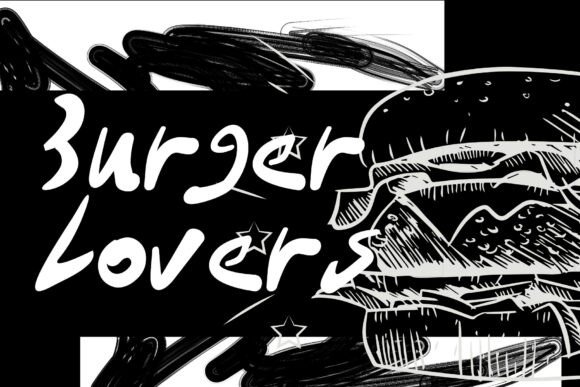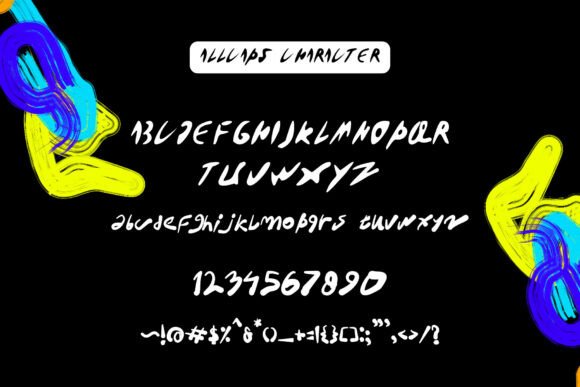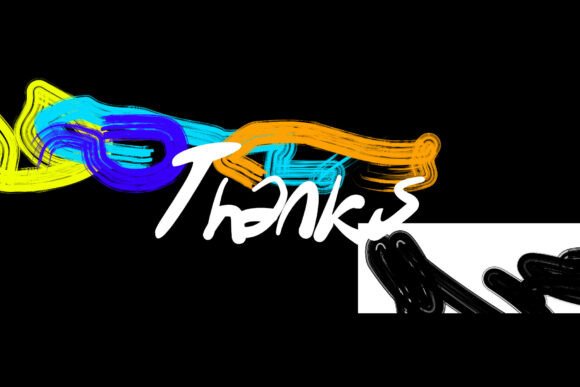
Introduction to Santara Font
Have you ever stared at a blank canvas, waiting for inspiration to strike? The blank page can be intimidating, but it’s also an opportunity to unleash your creativity. For designers, finding the perfect font can be the key to unlocking a project’s full potential. And that’s where the Santara Font comes in – a bold, handwritten display typeface that’s sure to add a touch of playfulness to any design.
With its brush-style strokes and modern typography, the Santara Font is a design resource that’s hard to ignore. Whether you’re working on a creative project or just need a high-quality font for a specific design, this font is sure to deliver. And the best part? It’s available for free download with a transparent background, making it easy to incorporate into your design.
Key Features of Santara Font
- High-quality design resource for creative projects, suitable for various design applications.
- Unique, elegant design that adds a touch of sophistication to any creative project.
Honest Review: Santara Font
I recently had the chance to work with the Santara Font in a creative project, and I must say it’s been a game-changer. As a designer, I’m always on the lookout for high-quality design resources that can elevate my work.
One of the standout features of the Santara Font is its beautiful, elegant design. The font is perfect for use in logo design, branding, and other creative projects where a sophisticated look is required. I especially appreciate the fact that it’s a free download, making it an accessible resource for designers of all levels.
- ✨ Beautiful, elegant design that’s perfect for logo design and branding
- ✨ High-quality font that’s suitable for a wide range of creative projects
- ⚠️ Limited character set, which may be a concern for designers working on projects that require a wide range of characters
- ⚠️ May not be suitable for use in text-heavy designs, as the font can be a bit too ornate
Overall, I’m really impressed with the Santara Font, and I think it’s a great addition to any designer’s toolkit. With its beautiful design and high-quality construction, it’s a font that’s sure to elevate any creative project. Just be aware of its limitations, and you’ll be all set to create some amazing designs with this font.
For the best results, use the Santara Font with a high-quality image or design element. Experiment with different font sizes, colors, and styles to find the perfect combination for your creative project. You can also use the font with other design elements, such as icons and graphics, to create a cohesive and visually appealing design.
The Santara Font is ideal for a variety of creative projects, including logo designs, business cards, and social media graphics. Its modern and sleek design makes it perfect for branding and marketing materials. You can also use it for personal projects, such as invitations and party decorations.
Alternatives to Santara Font
The Great Vibes Font is a beautiful, elegant script font ideal for creative projects that require a touch of sophistication. It’s perfect for wedding invitations, art prints, or any design that needs a high-end feel. Great Vibes Font is a great alternative to Santara Font for designers looking for a more refined and luxurious look.
The Dancing Script Font is a fun and playful script font that’s perfect for designs that need a lively and energetic vibe. It’s great for use on social media, blogs, or any design that requires a creative and engaging feel. Compared to Santara Font, Dancing Script Font is more whimsical and fun, making it a great choice for designers looking for a more carefree design resource.
Is the Santara Font available in different font sizes and styles?
The Santara Font comes in a range of font sizes and styles, from light to bold, to suit your design needs. You can also customize the font using various design tools and software, such as font editors or graphic design applications. This flexibility makes it an ideal choice for designers working on complex creative projects.